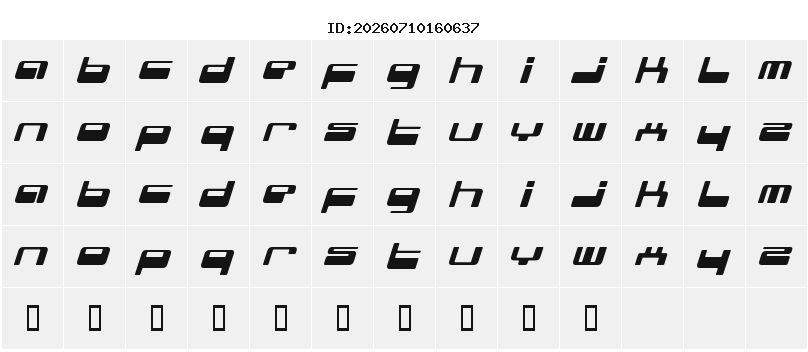
genotype Preview
• Font Name: genotype
• Full Font Name: genotype
About genotype.ttf
genotype.ttf is a modern, elegant sans-serif font designed for ultimate readability and visual harmony. Perfect for branding, headlines, web design, and print materials.